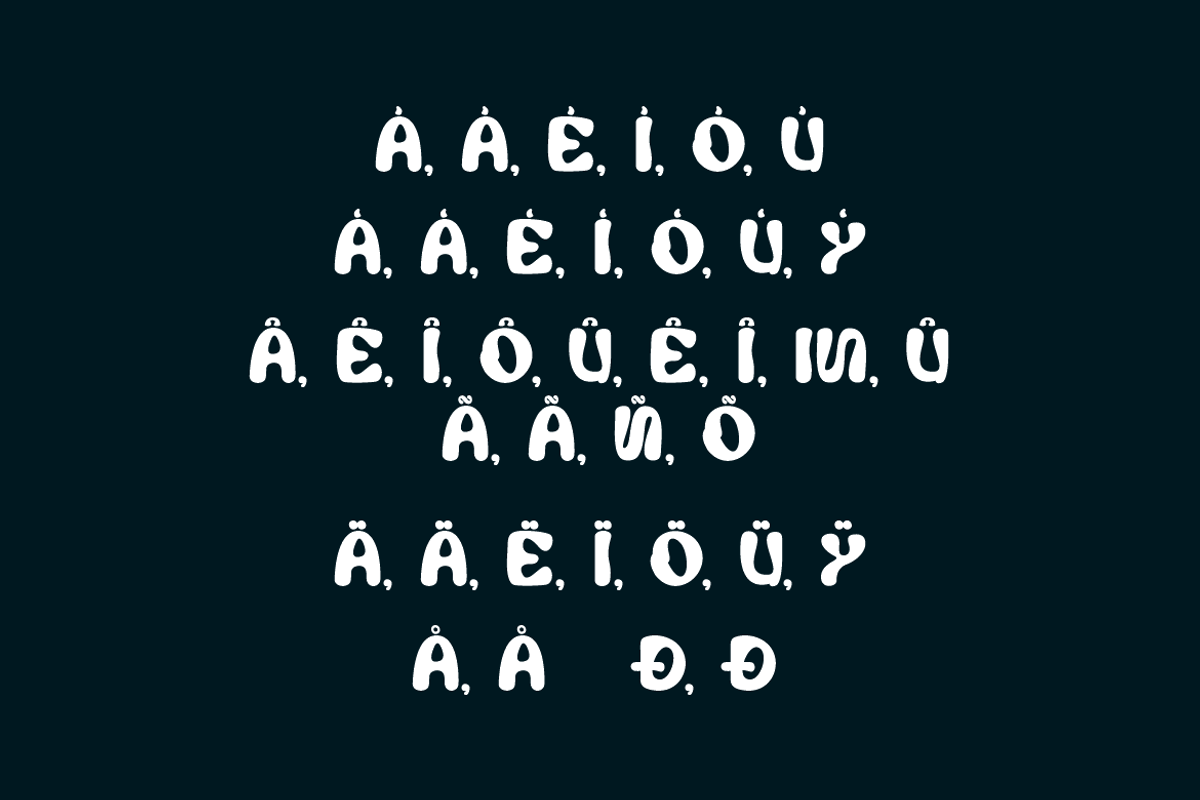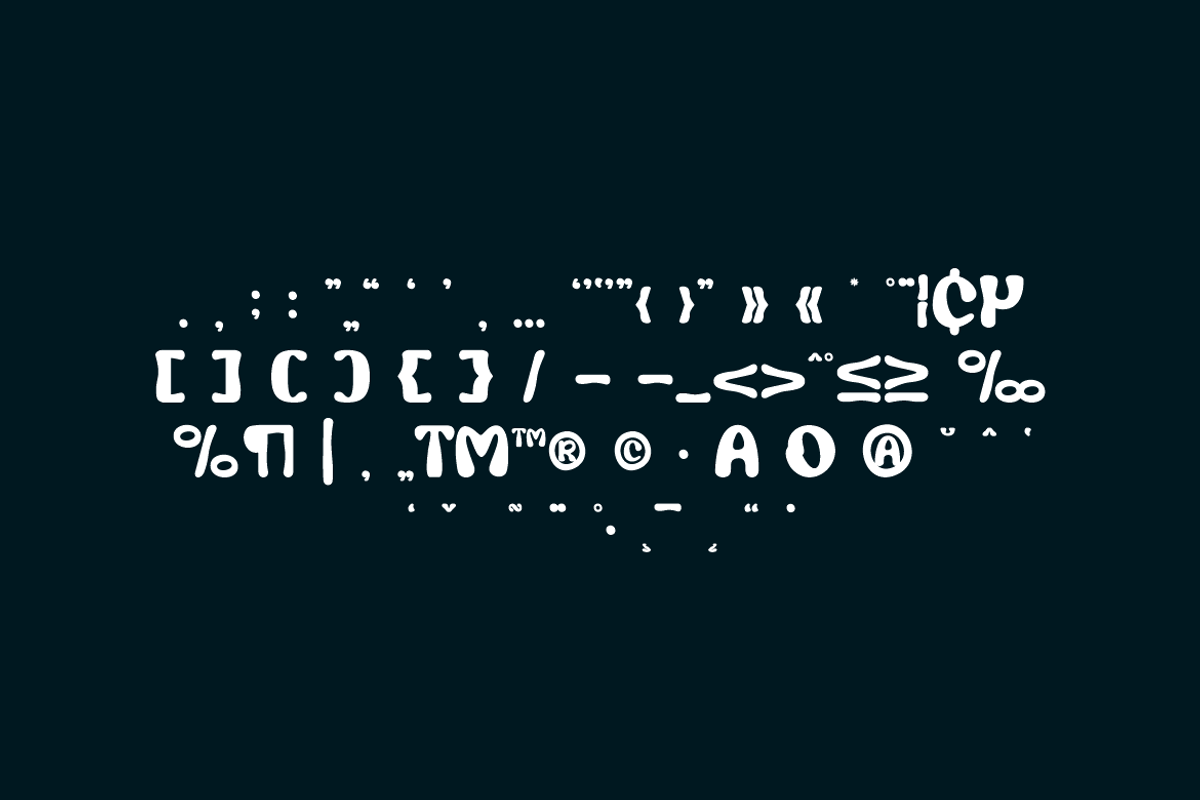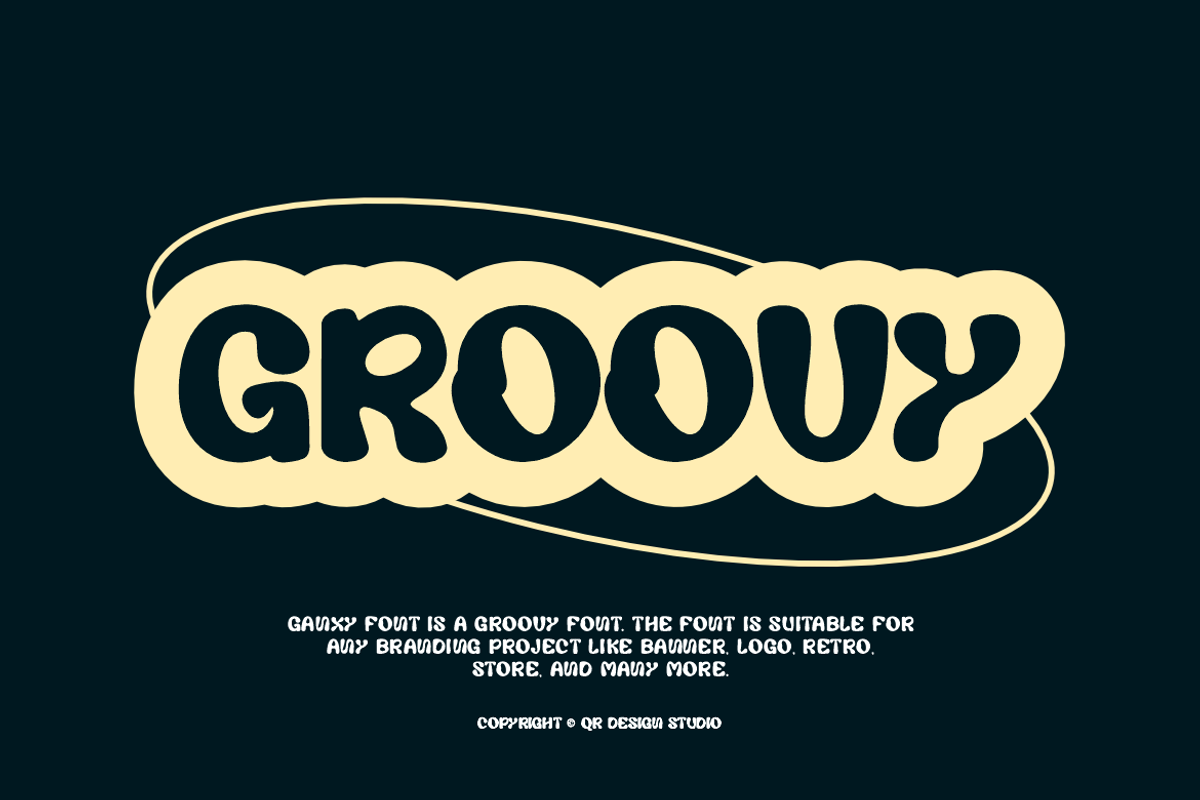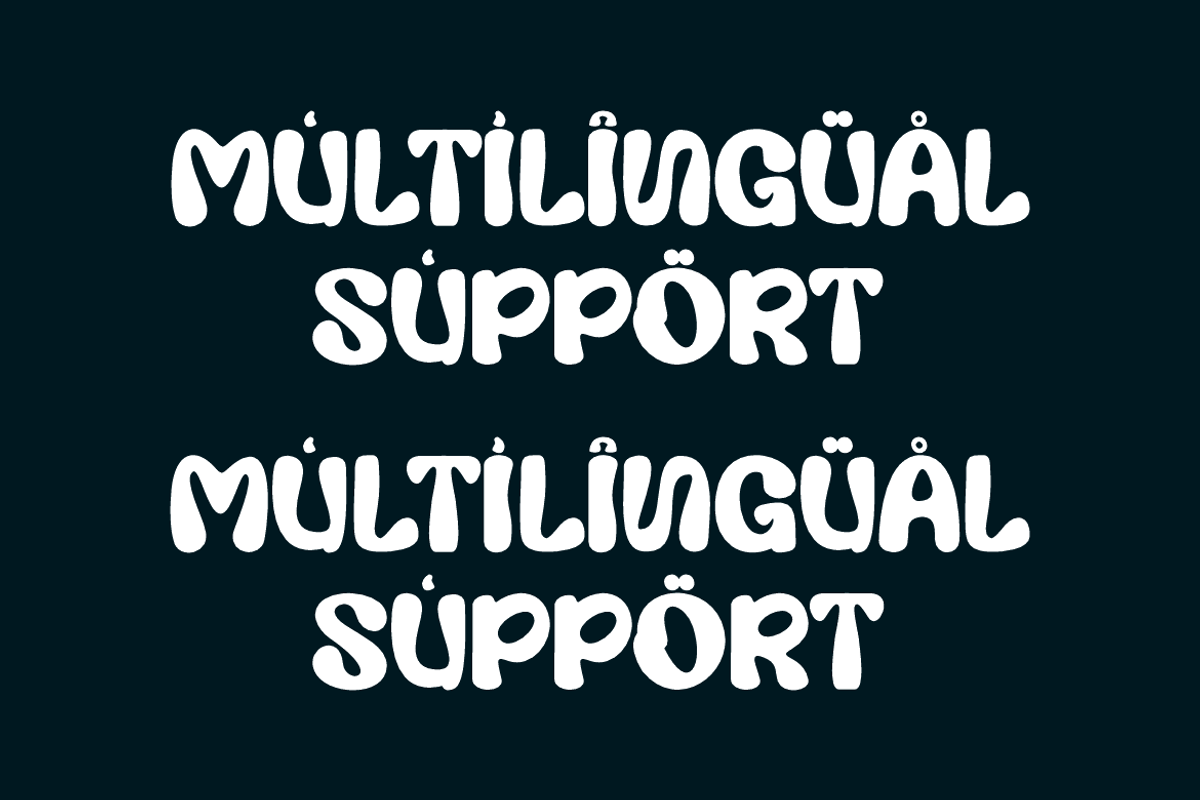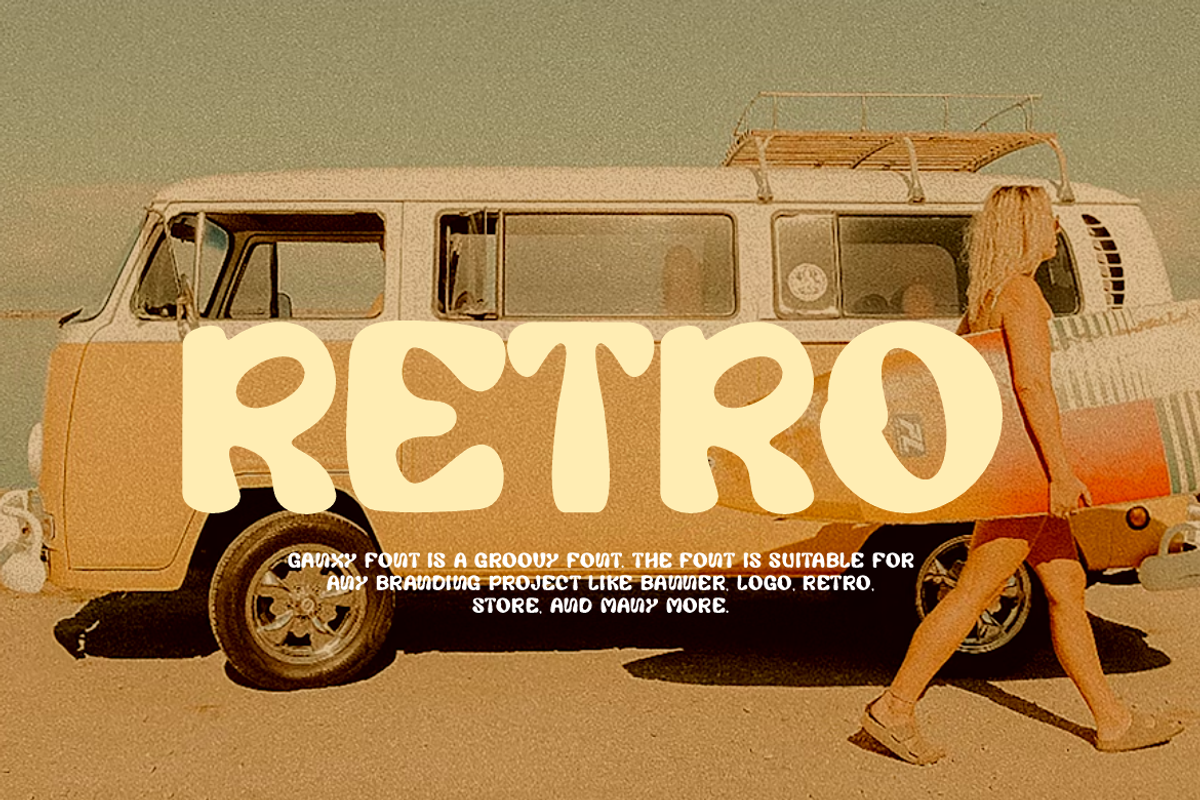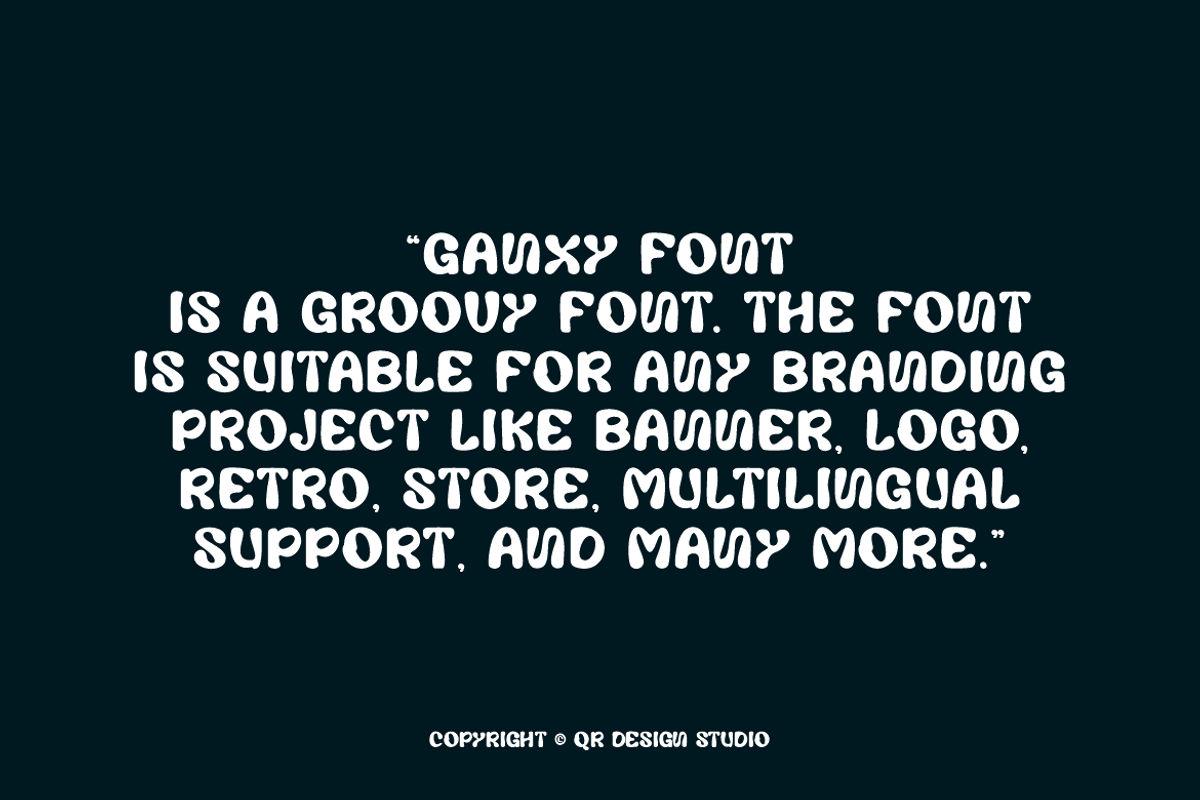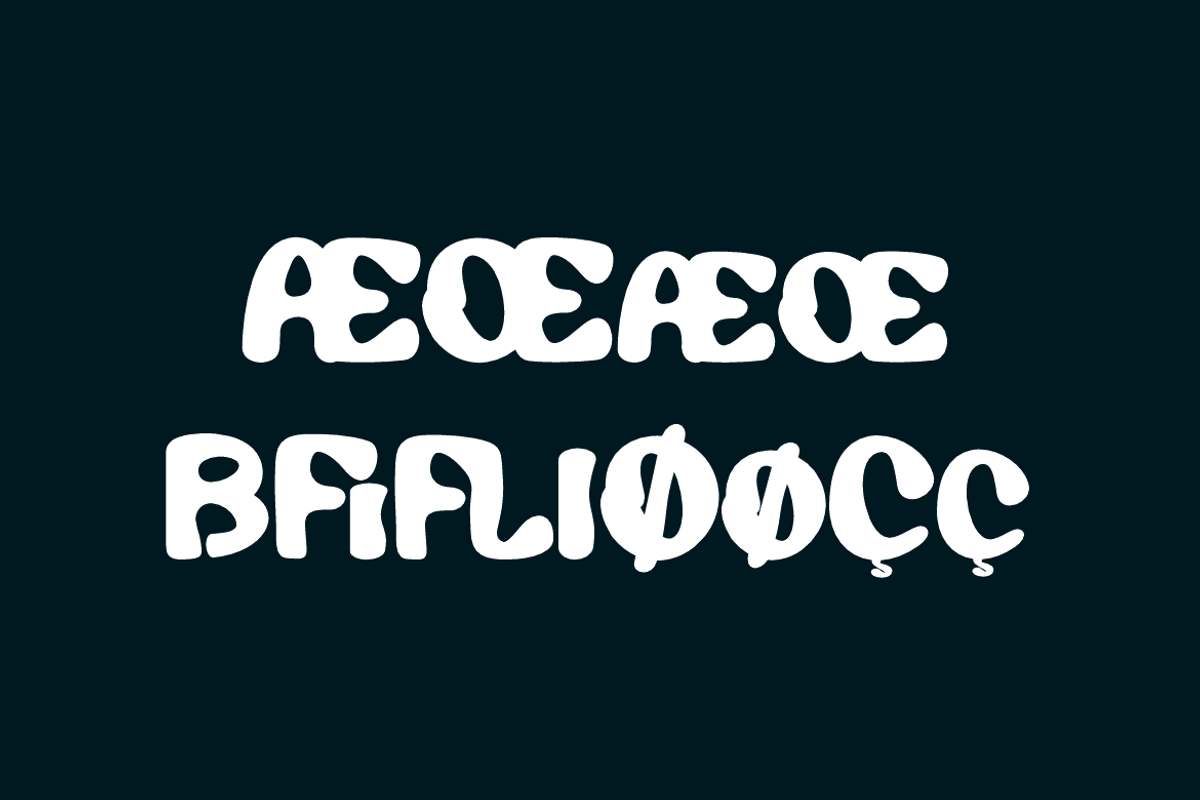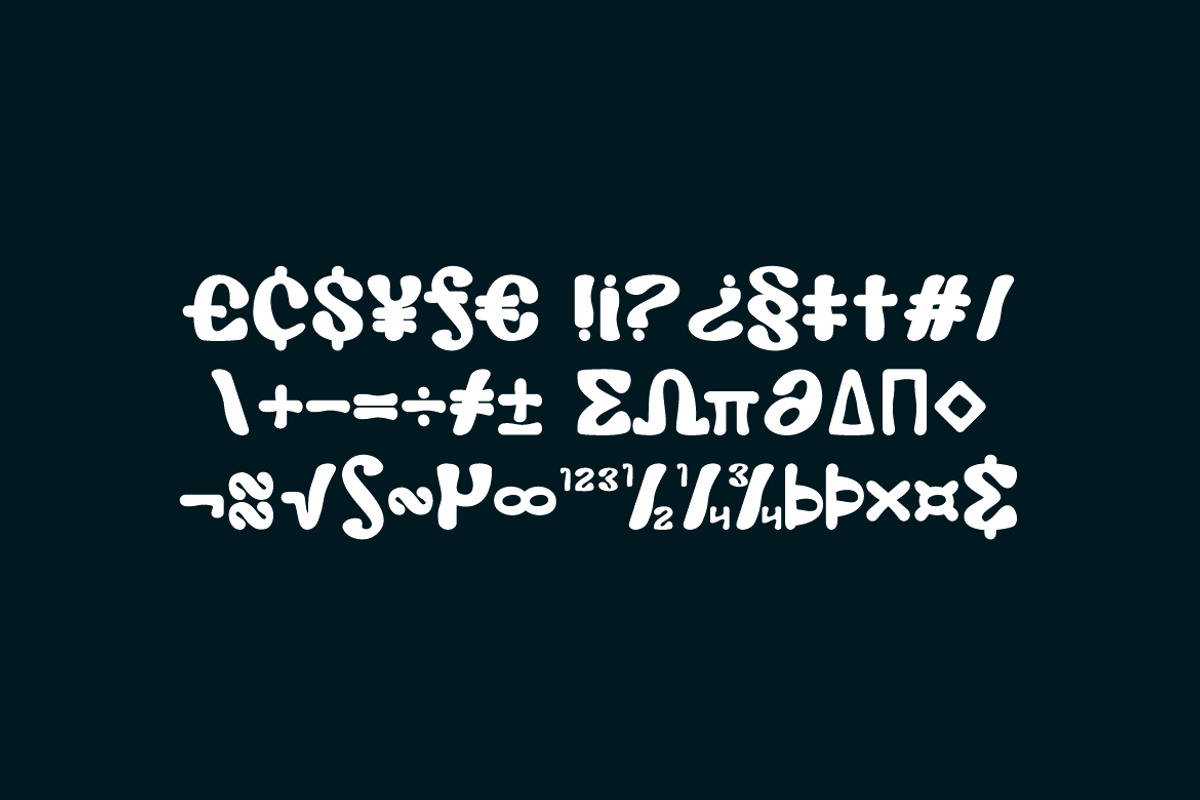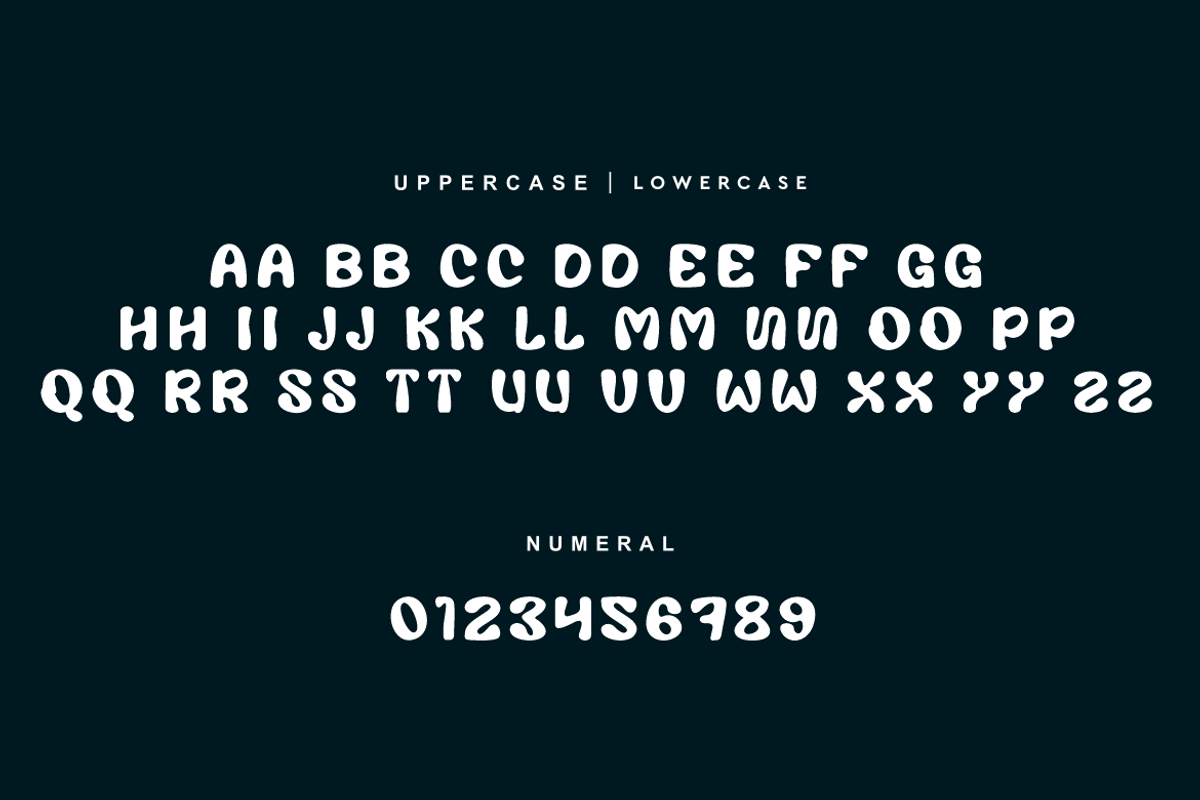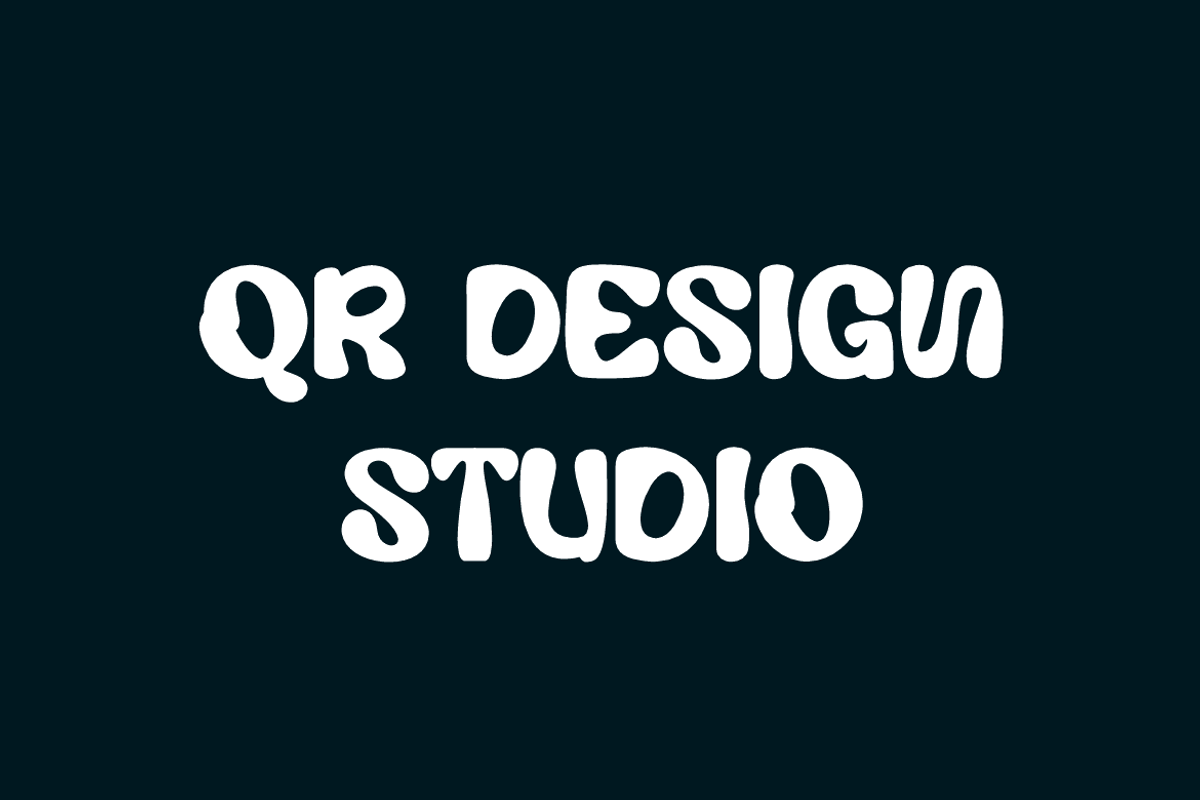
Ganxy - Retro Display Font
Ganxy Font is a bold and authentic display font. The font is suitable for any branding project like poster, logo, retro, and many more. Outstanding in a wide range of contexts.